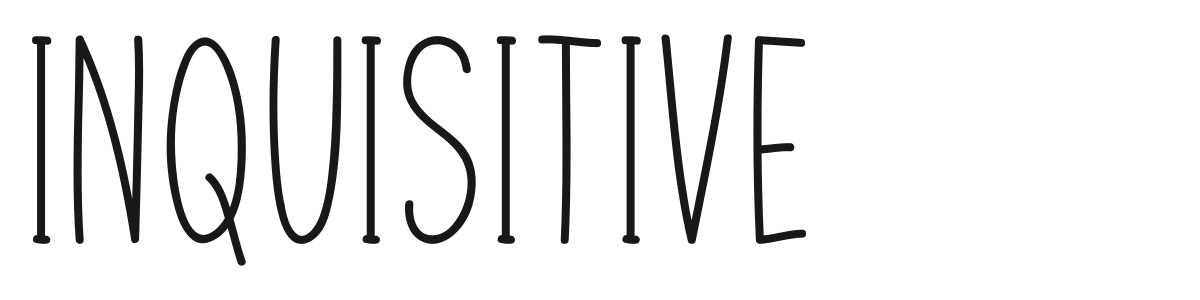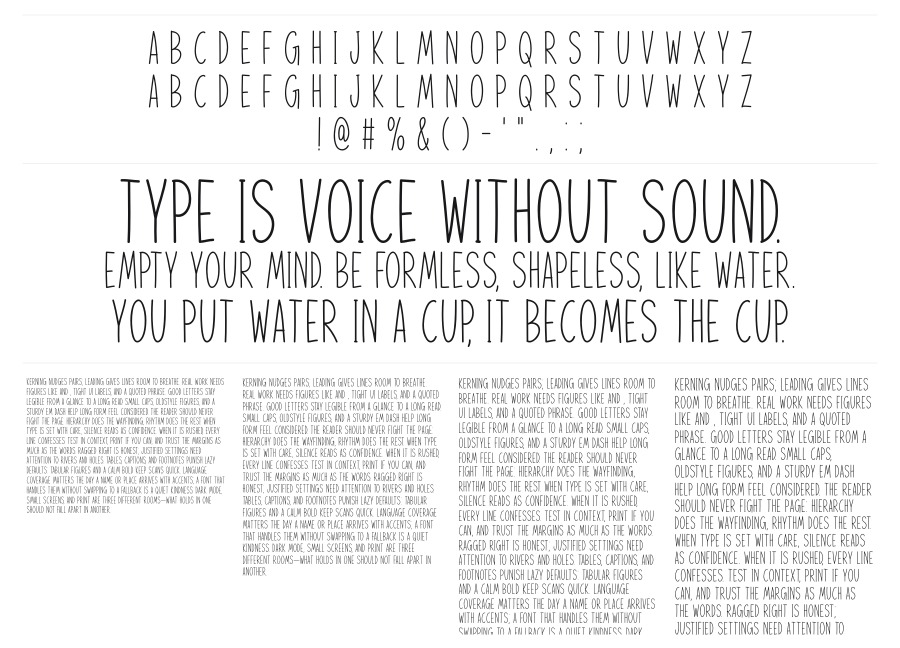
Inquisitive
Inquisitive is a tall, narrow hand-drawn sans with a light, airy weight and gently irregular strokes that keep it feeling alive rather than mechanical. The subtle organic variation from letter to letter gives it a sketchbook warmth without leaning into full handwriting territory. It suits branding and headlines where a casual, curious personality is the point.